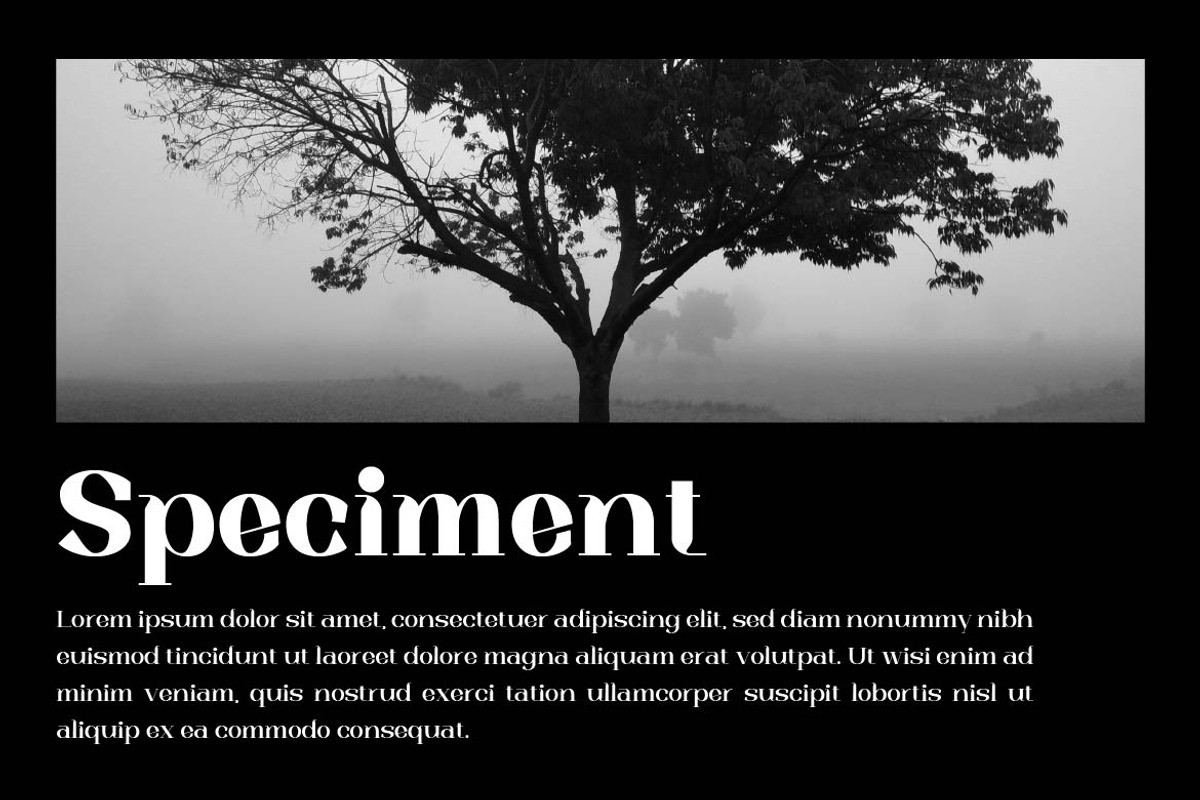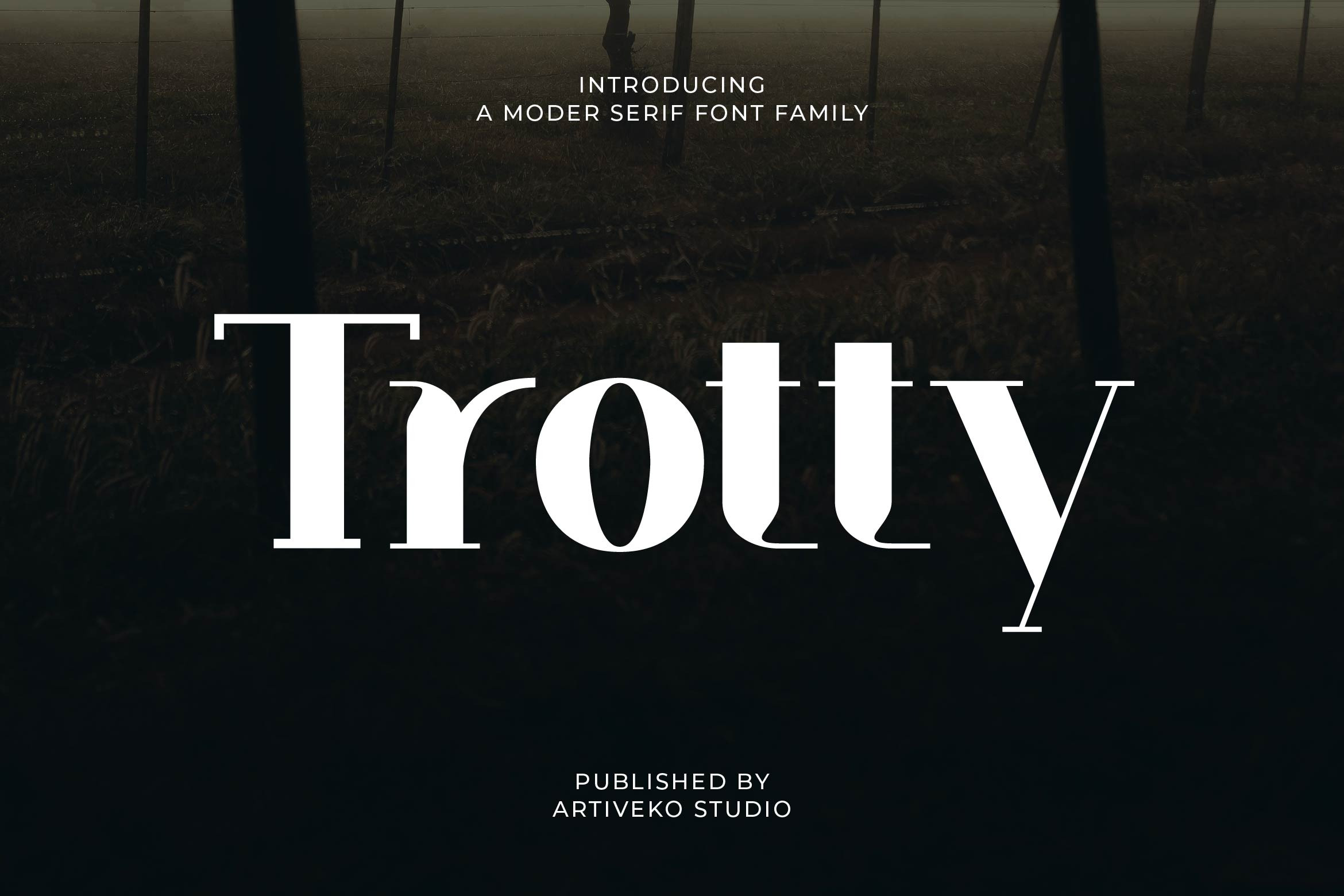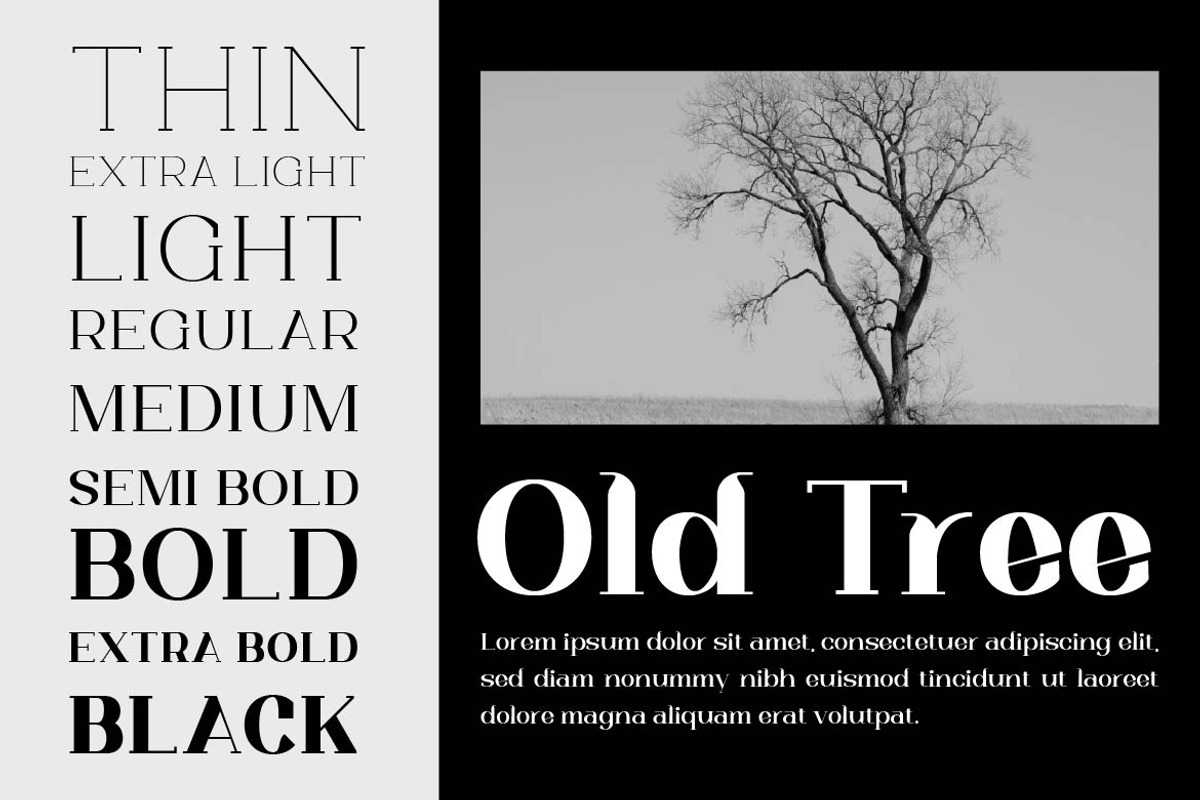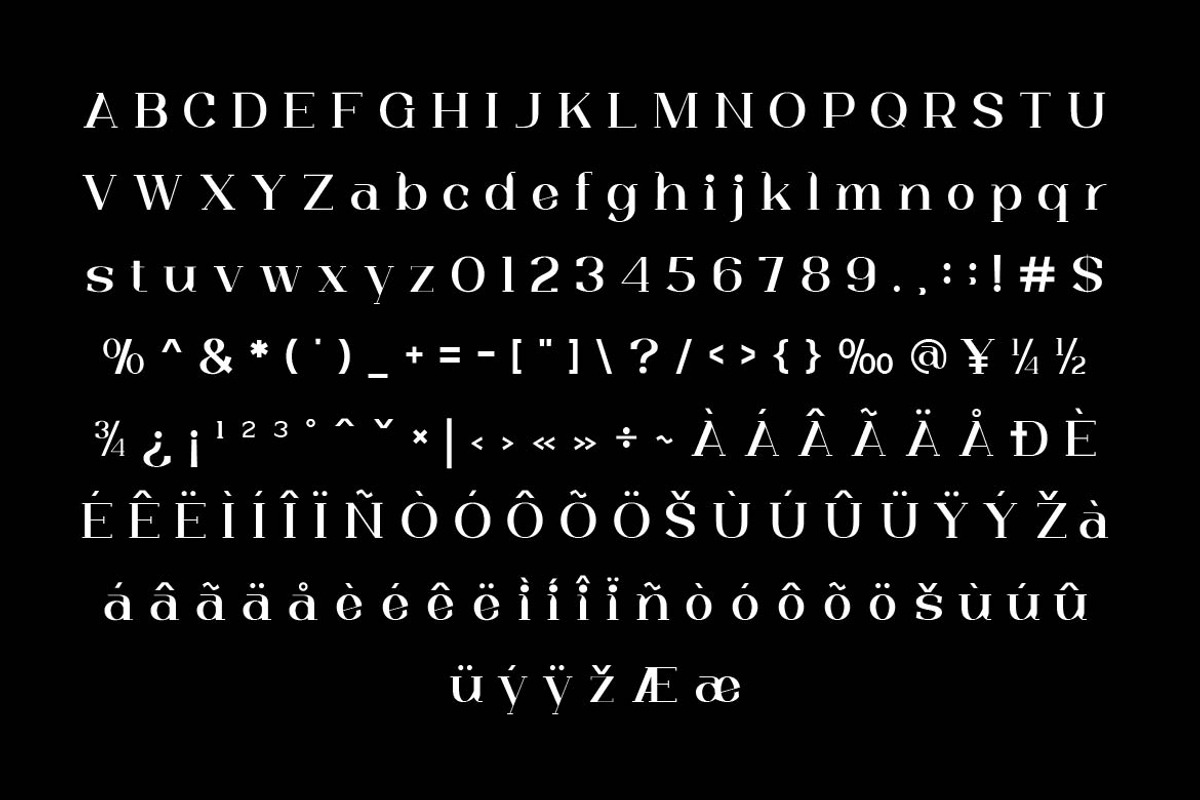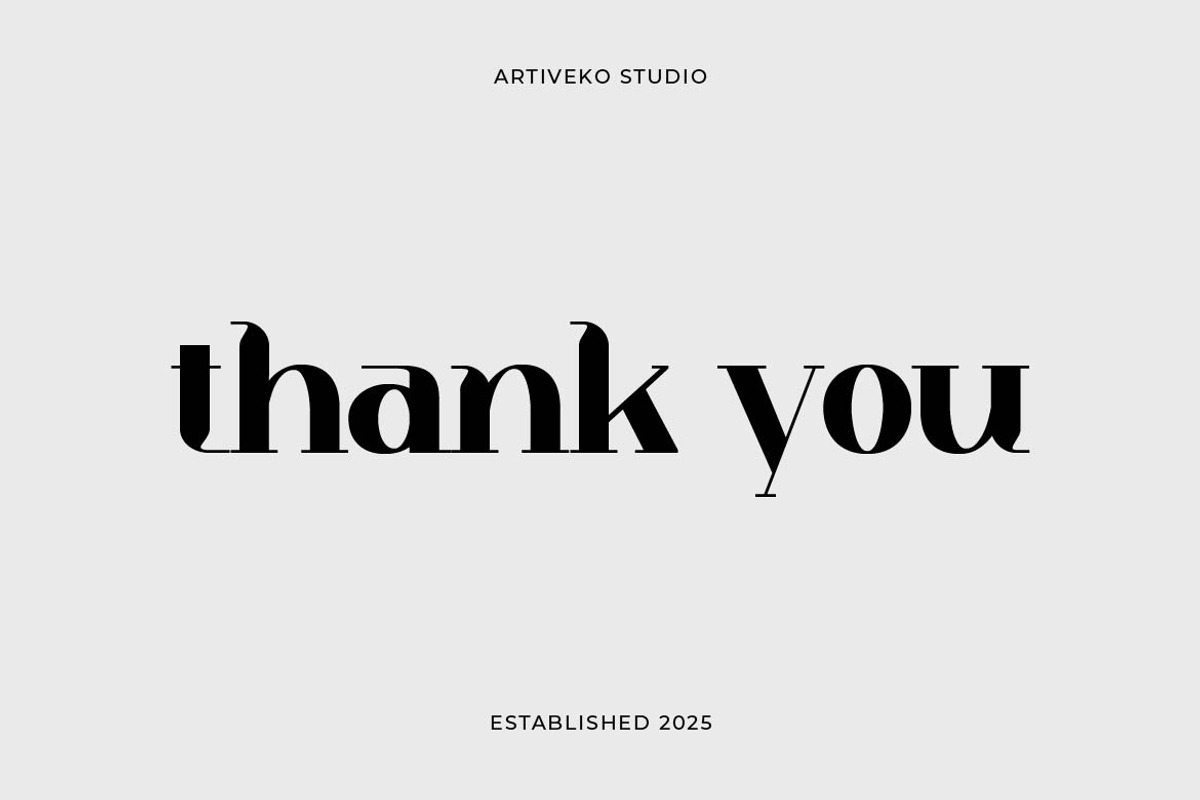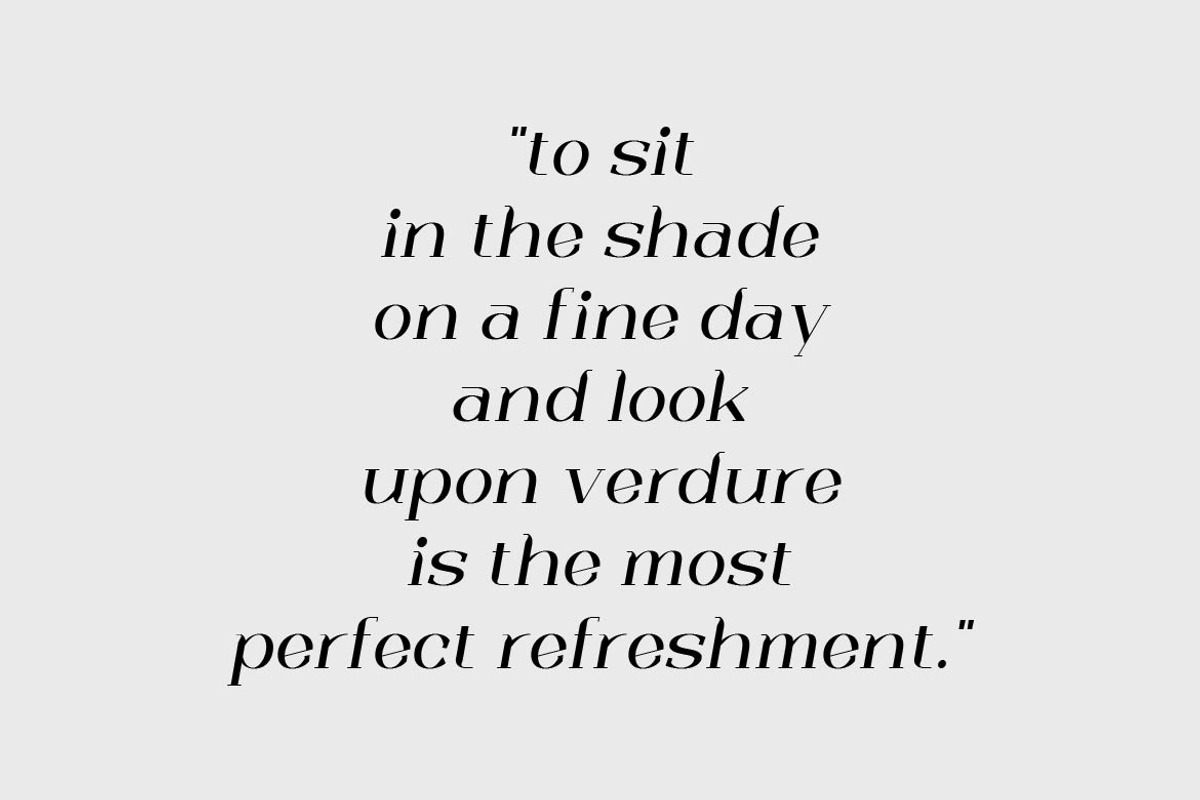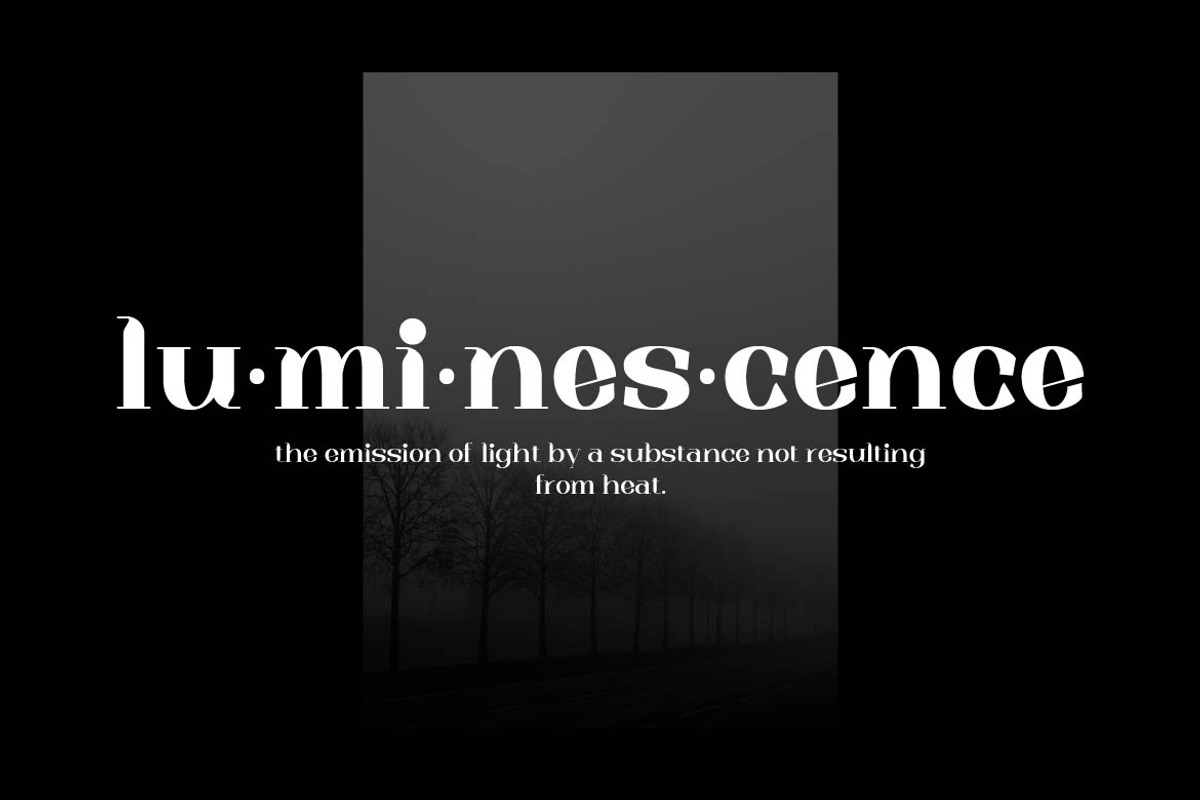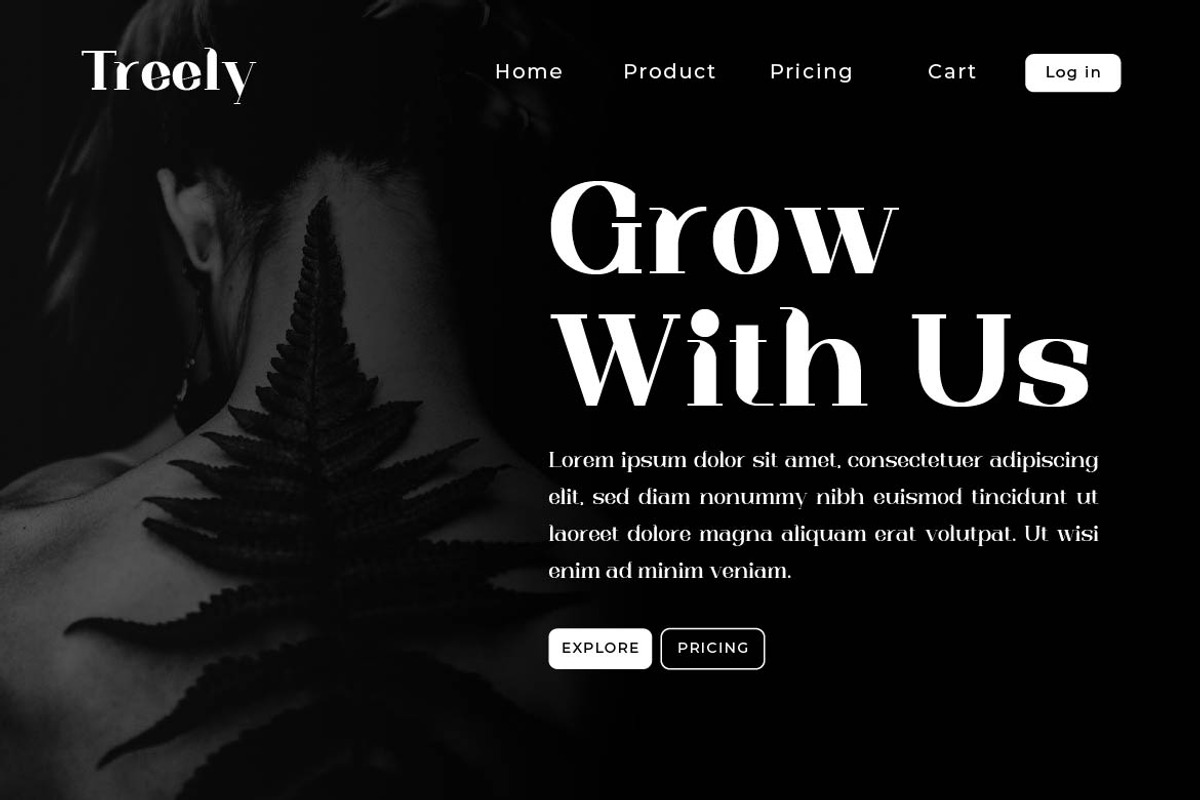
Trotty Elegant Serif Font Family
Trotty is an elegant serif font family crafted with graceful curves, refined contrast, and a luxurious sense of balance. Designed to bring sophistication to modern branding, Trotty blends classic serif beauty with a fresh contemporary touch—making it perfect for editorial layouts, logos, packaging, wedding stationery, fashion branding, and high-end marketing visuals.